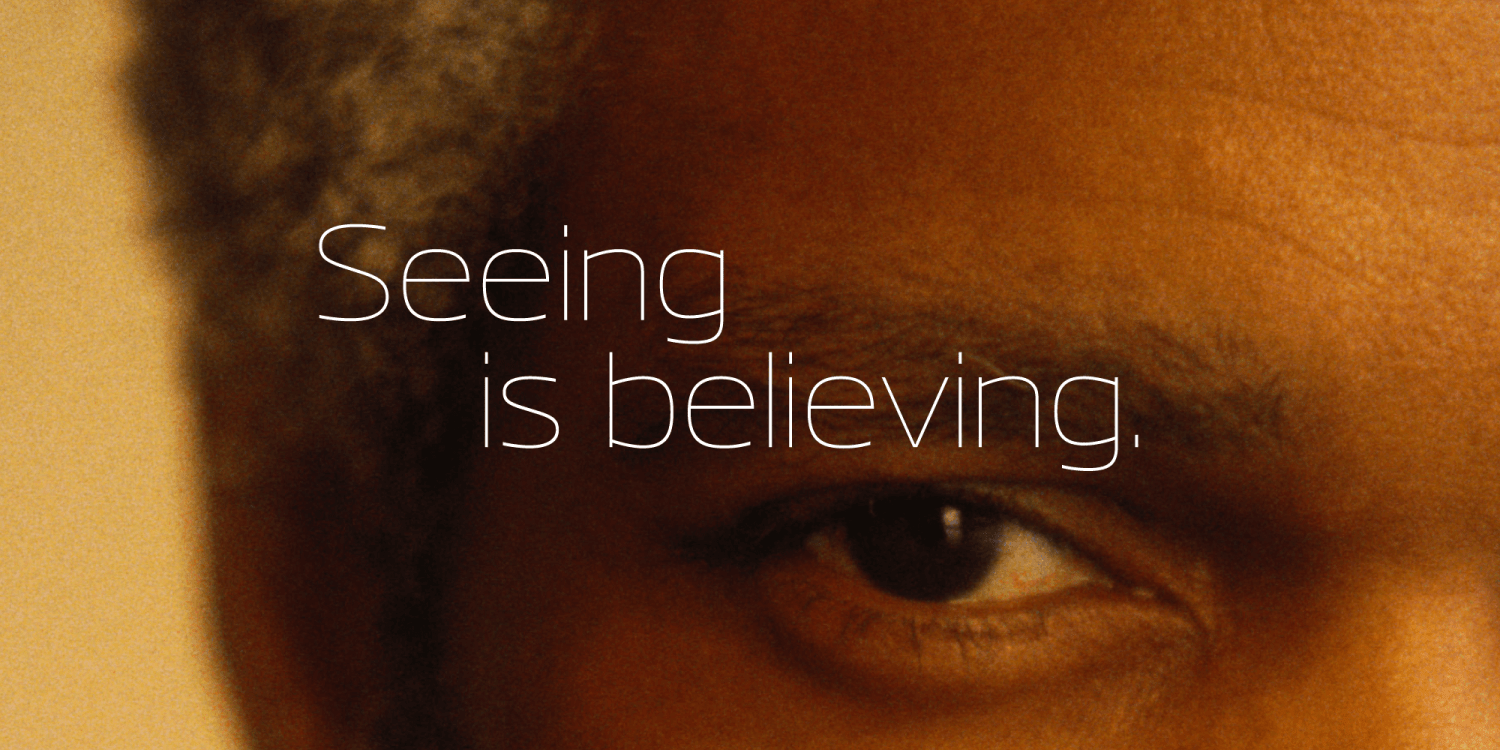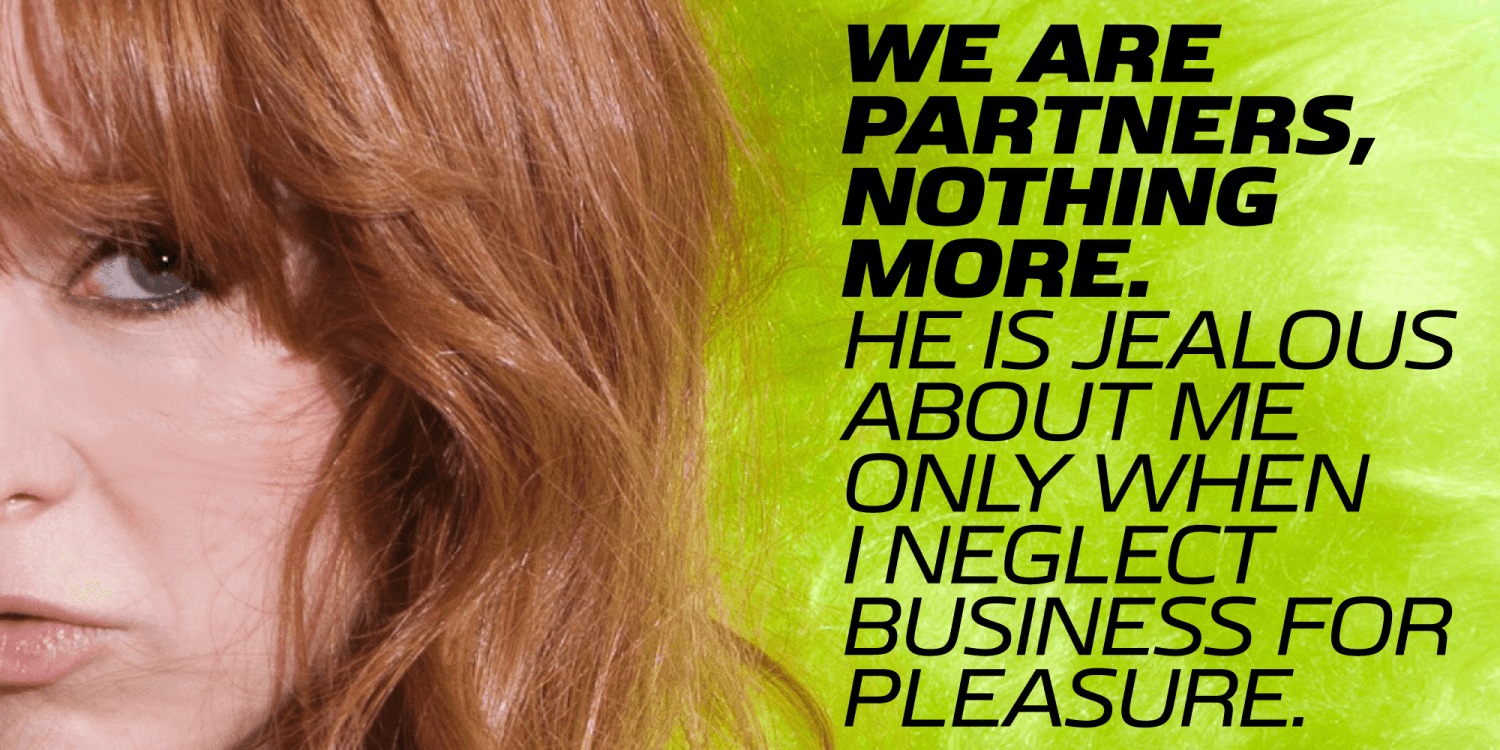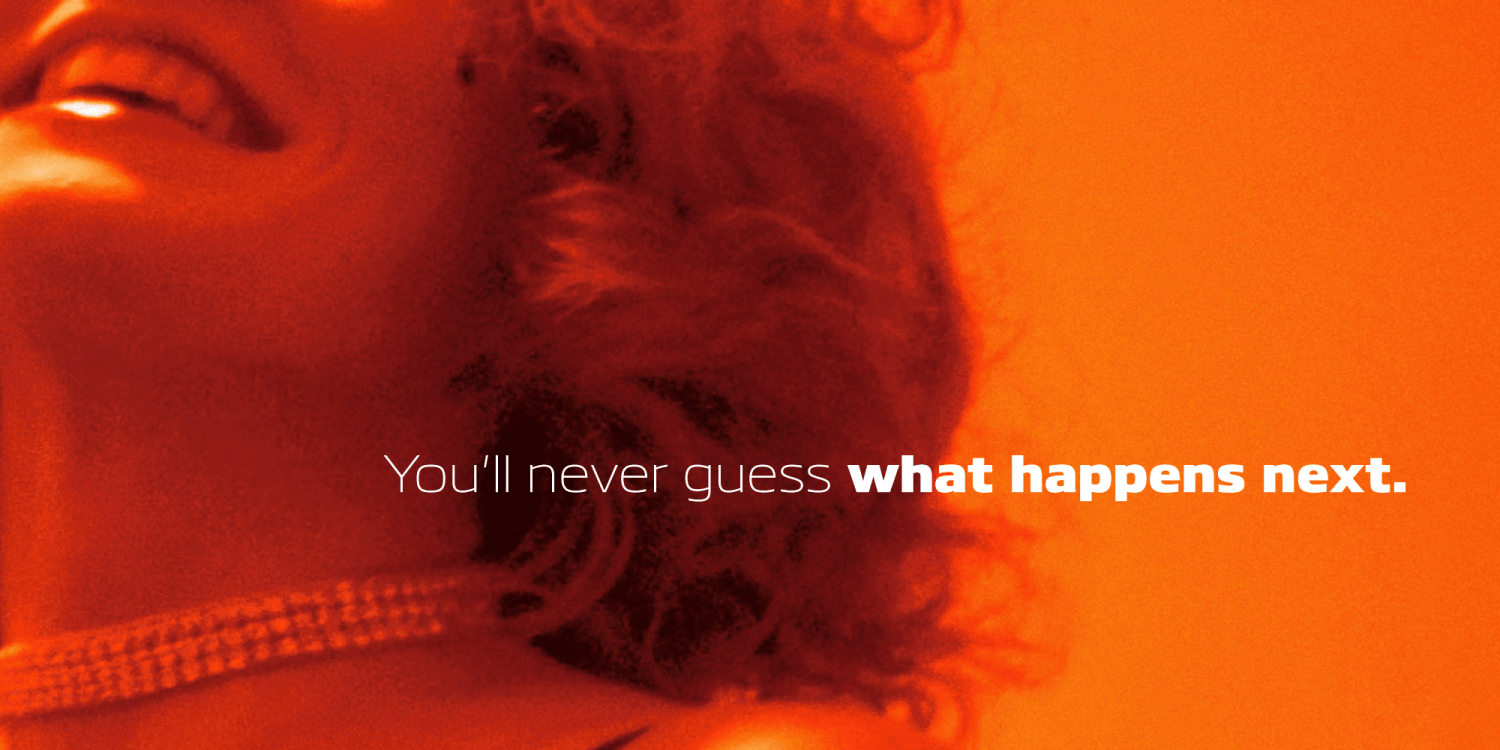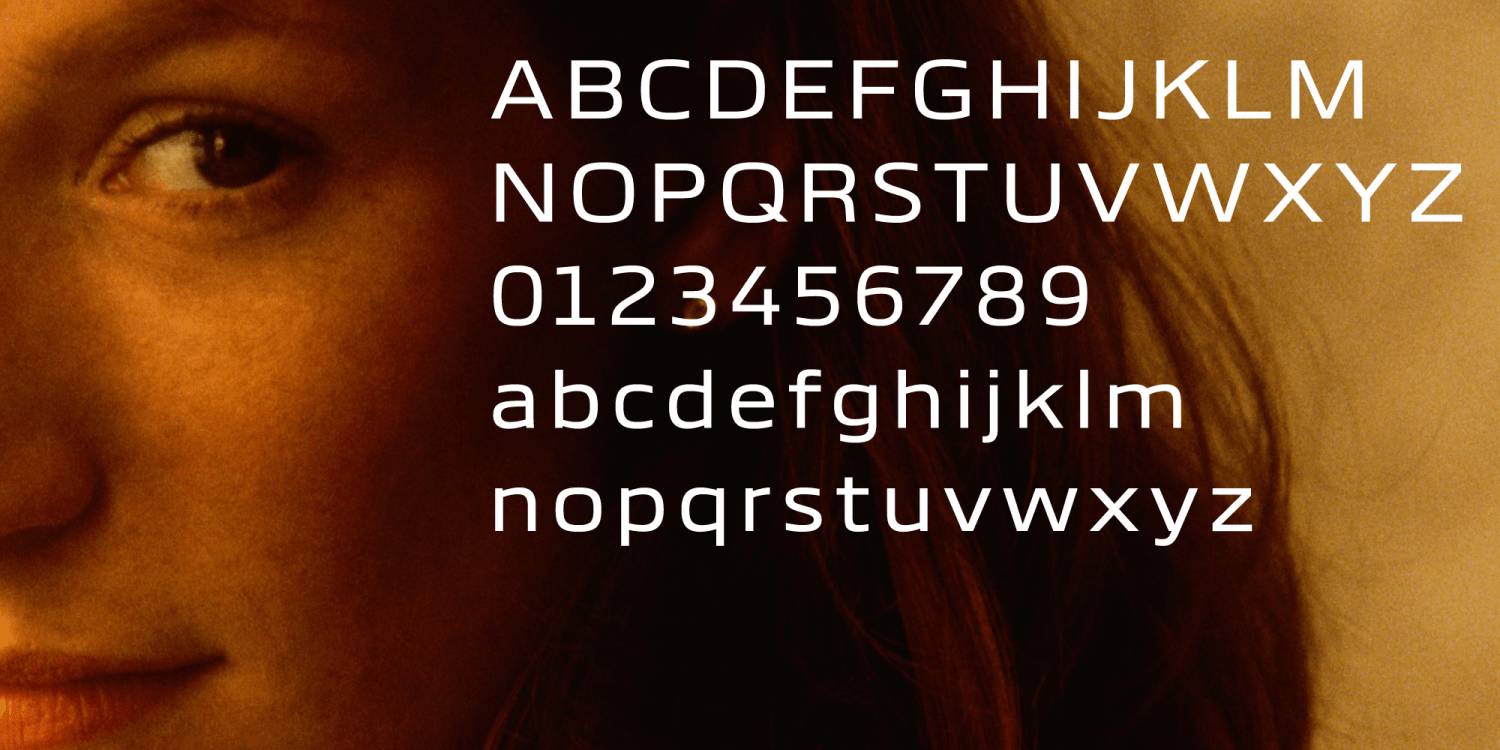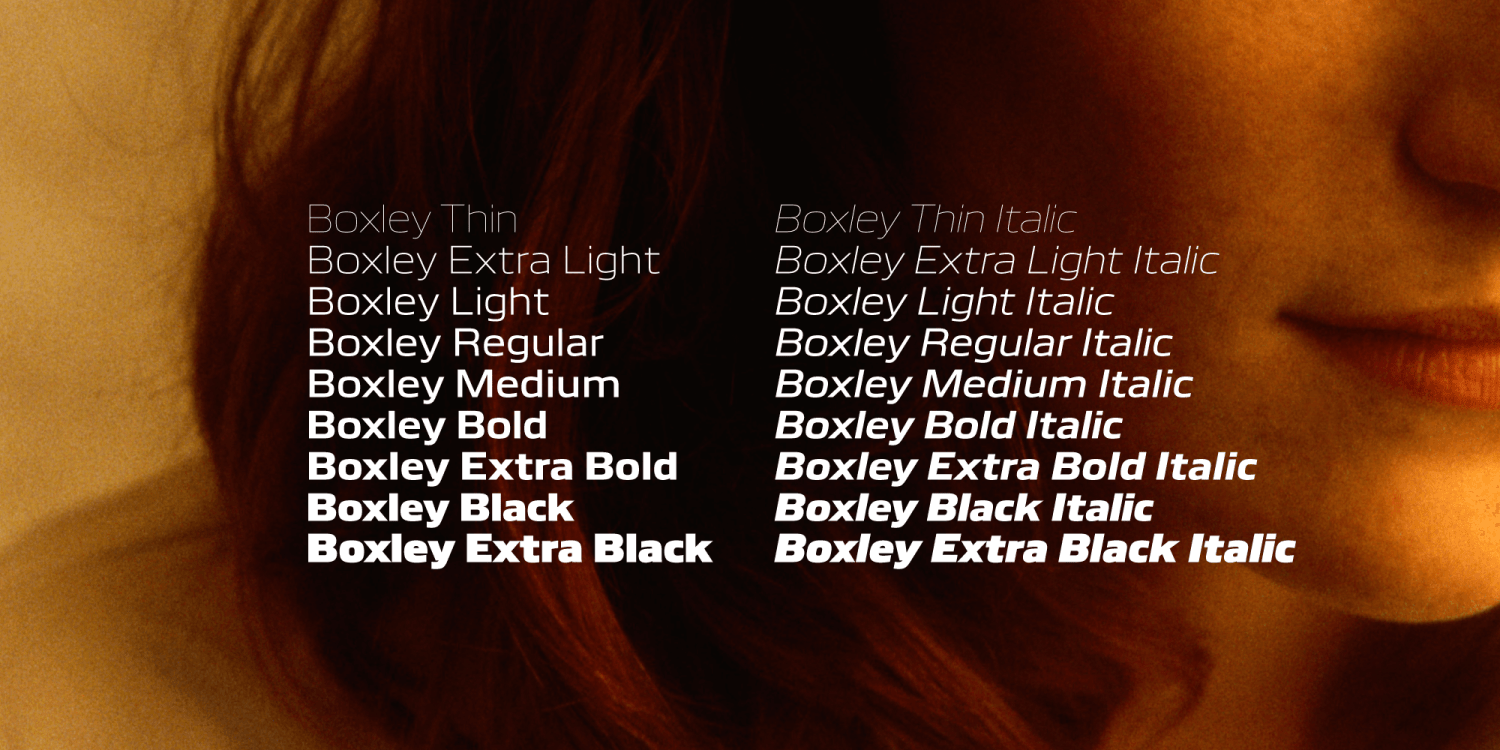
About Boxley
Superellipse curvature, with its impeccable evocation of modernity, is mated to a sans template of exemplary neutrality, yet distinguished by open counters, a slight horizontal extension, and large-bodied minuscules with short extenders. The style possesses…